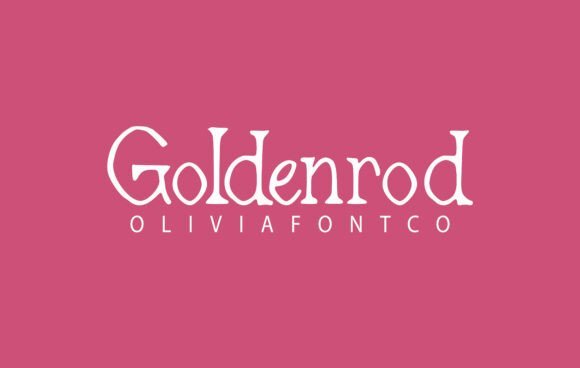
The Perfect Match for Your Creative Vision
Have you ever found yourself pouring your heart and soul into a design project, only to realize that the perfect font is missing? That’s exactly what happened to many designers when they stumbled upon the enchanting Goldenrod Font. This authentic handwritten font is more than just a stylish addition to your designs – it’s a game-changer.
Expertly designed to evoke a romantic touch, the Goldenrod Font is the perfect companion for your creative endeavors. Whether you’re crafting magazine headlines, social media posts, or wedding invitations, this font is sure to elevate your designs to new heights. Its legibility and versatility make it an invaluable asset for designers looking to add a personal touch to their work.
With its unique charm and character, the Goldenrod Font is an absolute must-have for any designer looking to take their creative ideas to the next level.
Key Features of Goldenrod Font
- Font Family: Goldenrod is a serif font family designed by Bitstream in 1984.
- Unique Characteristics: Goldenrod is known for its classic, elegant appearance and is often used in publishing and typesetting.
Goldenrod Font Review
As a designer, I was excited to dive into the Goldenrod font, and overall, I have mixed feelings about it.
The Goldenrod font has a unique, vintage charm to it, which can be perfect for certain design projects that require a touch of nostalgia. It’s also relatively easy to read, especially in larger font sizes. The font’s lines are smooth and well-defined, making it suitable for both digital and print media.
- Unique vintage charm
- Easy to read in larger font sizes
- Smooth and well-defined lines
However, the Goldenrod font also has some limitations that might make it less suitable for certain projects. For one, the font’s readability can be an issue in smaller font sizes, and the lines can become quite blurry. Additionally, the font’s weight is relatively uniform, which can make it difficult to convey hierarchy and emphasis.
- Difficulty reading in smaller font sizes
- Lines can become blurry at small sizes
- Uniform weight can make it hard to convey hierarchy and emphasis
Overall, the Goldenrod font is a solid choice for designers who want to add a vintage touch to their projects. While it may have its limitations, it’s still a great option for those who value its unique charm and smooth lines. With some careful consideration and adjustments, the Goldenrod font can be a valuable addition to any design toolbox.
Getting the Most Out of Goldenrod Font
For optimal results, use Goldenrod font in conjunction with warm colors and vintage textures. This font is ideal for creating a classic, nostalgic look in your designs.
Goldenrod font is commonly used in:
- Invitations and event materials
- Vintage-style posters and advertisements
- Wedding stationery and decorations
- Classic book and magazine covers
Alternatives to Goldenrod Font for Designers
1. Baskerville Font
Baskerville Font is a classic serif typeface designed by John Baskerville in the 18th century. It’s ideal for use in formal and professional settings, such as in business reports, academic papers, and literature. Baskerville Font is more elegant and refined compared to Goldenrod Font, which has a more rustic and old-fashioned feel. It’s also more versatile and can be used in a wider range of contexts.
2. Georgia Font
Georgia Font is a serif typeface designed by Matthew Carter in 1993. It’s designed specifically for on-screen use and is a popular choice for digital publications, such as e-books and websites. Georgia Font is more modern and legible compared to Goldenrod Font, which can be difficult to read in smaller sizes. It’s also more suitable for body text and can be used in a variety of contexts.